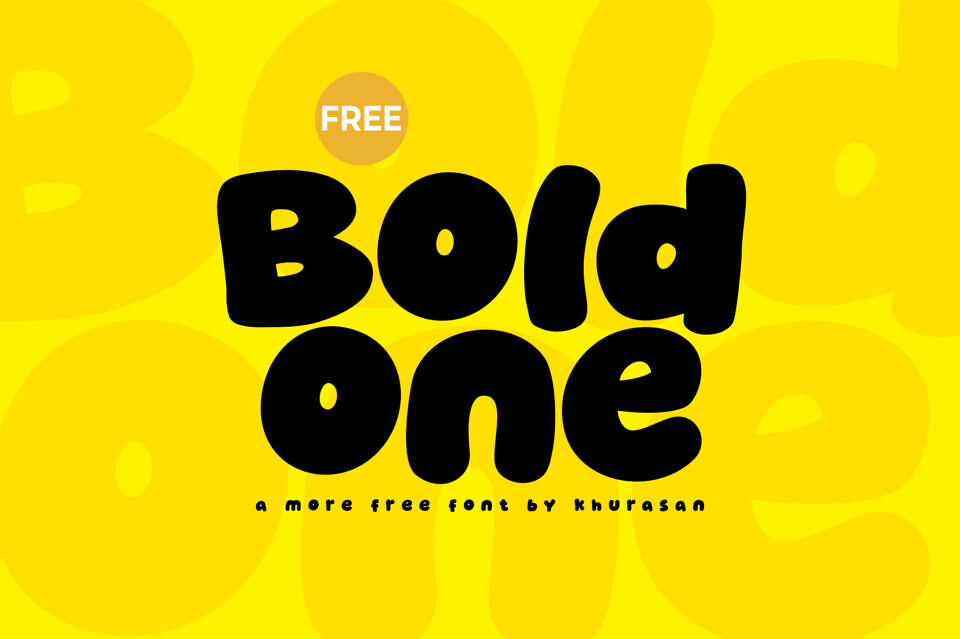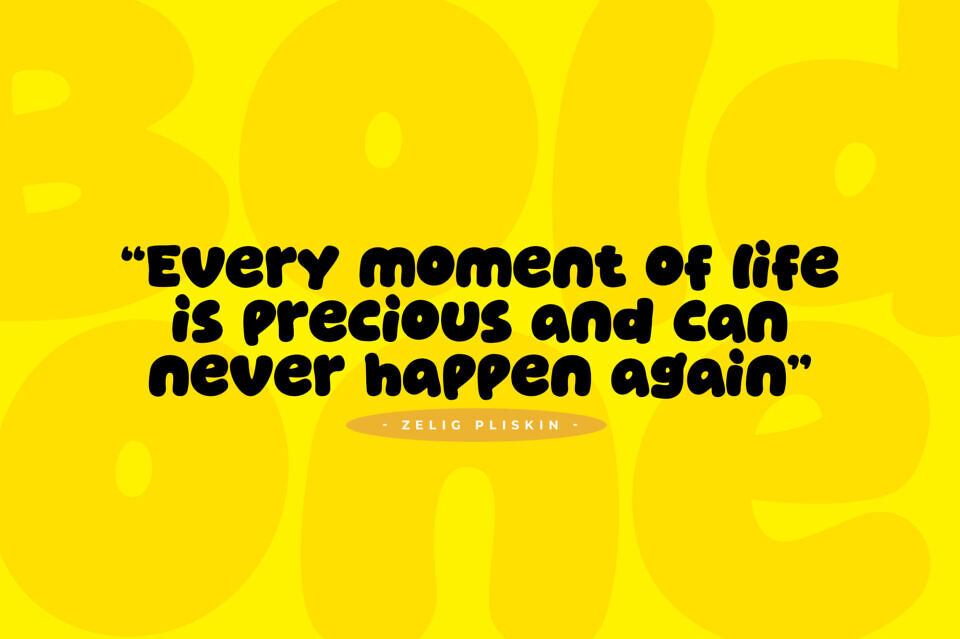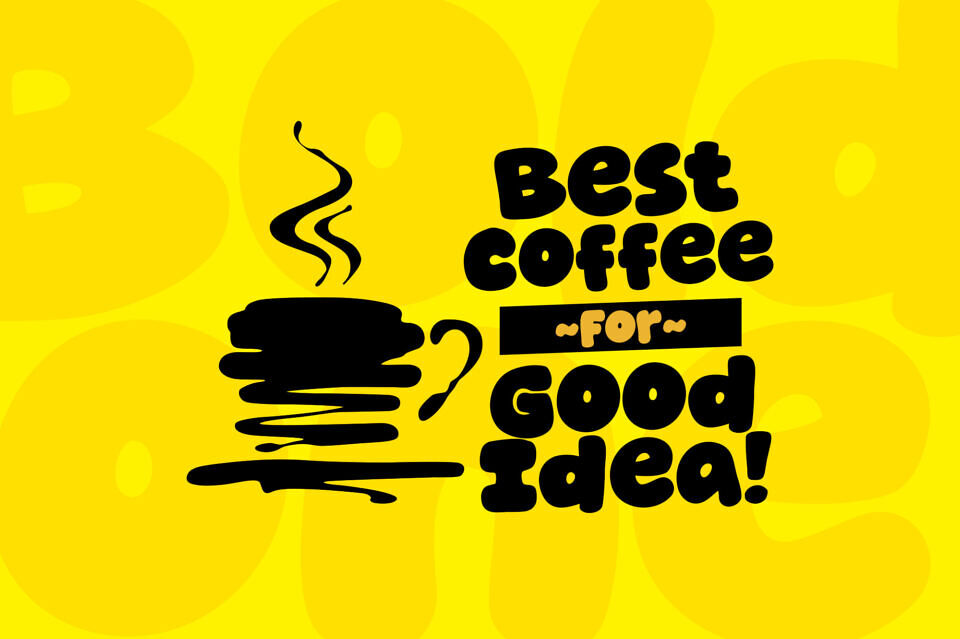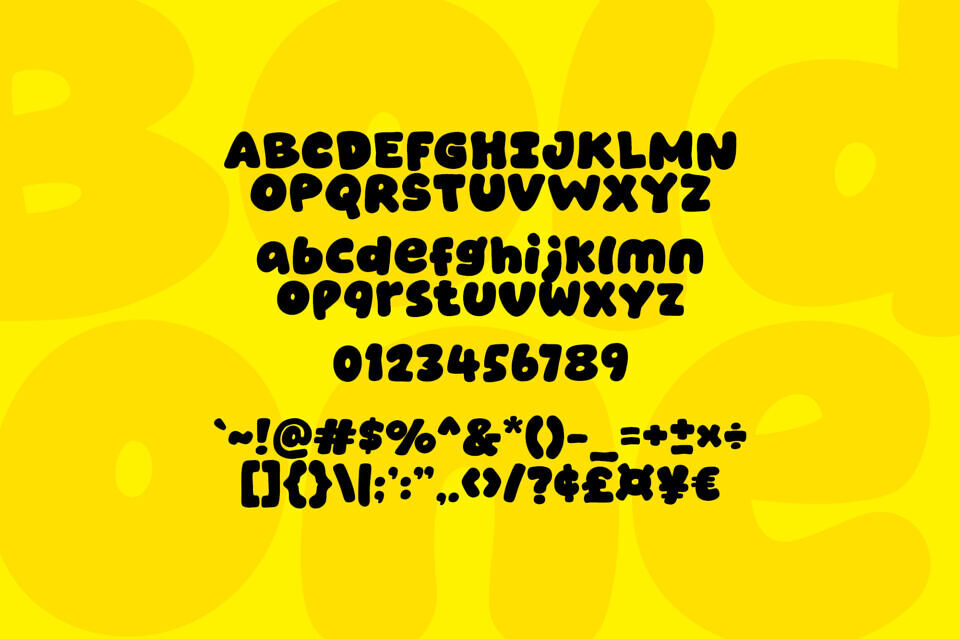
Make a massive, candy-coated impression on your canvas with Boldone, an exceptionally heavy display typeface. This ultra-thick, friendly font features extra-chubby all-caps letterforms distinguished by their soft pillowed stems, tightly packed structural alignment, and a gentle comic-style posture.
Seamlessly bridging the gap between nostalgic 1990s snack wrappers and modern streetwise pop art, Boldone is the premier choice for independent custom streetwear logos, alternative kids’ apparel graphics, bold stickers, boutique bakery packaging, and high-impact social media titles.